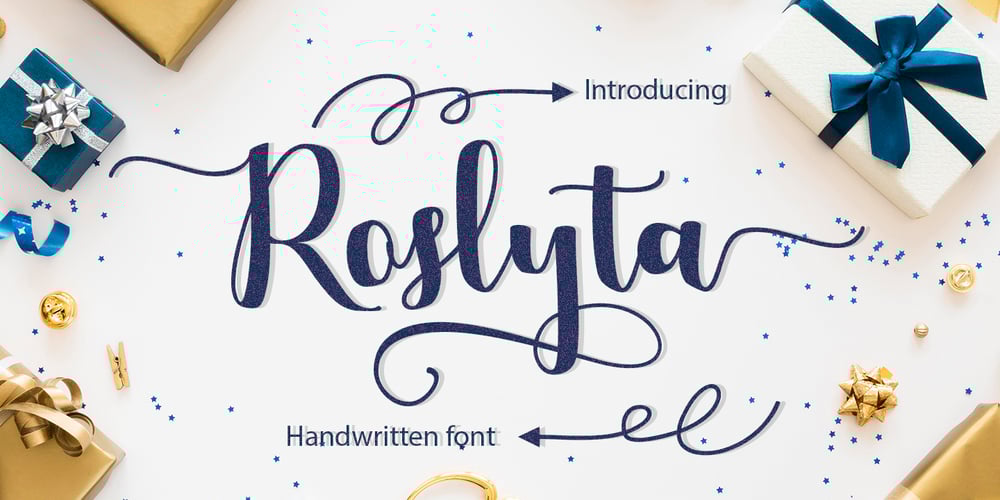
Roslyta script
Roslyta script font
Roslyta script Font Family was designed by Nasrullah and published by Sulthan Studio. Roslyta script contains 2 styles and family package options. s a handwritten font with many alternative lowercase glyphs plus doodlesThe best tool if you want to make t-shirt designs, mug designs, or just to play around.